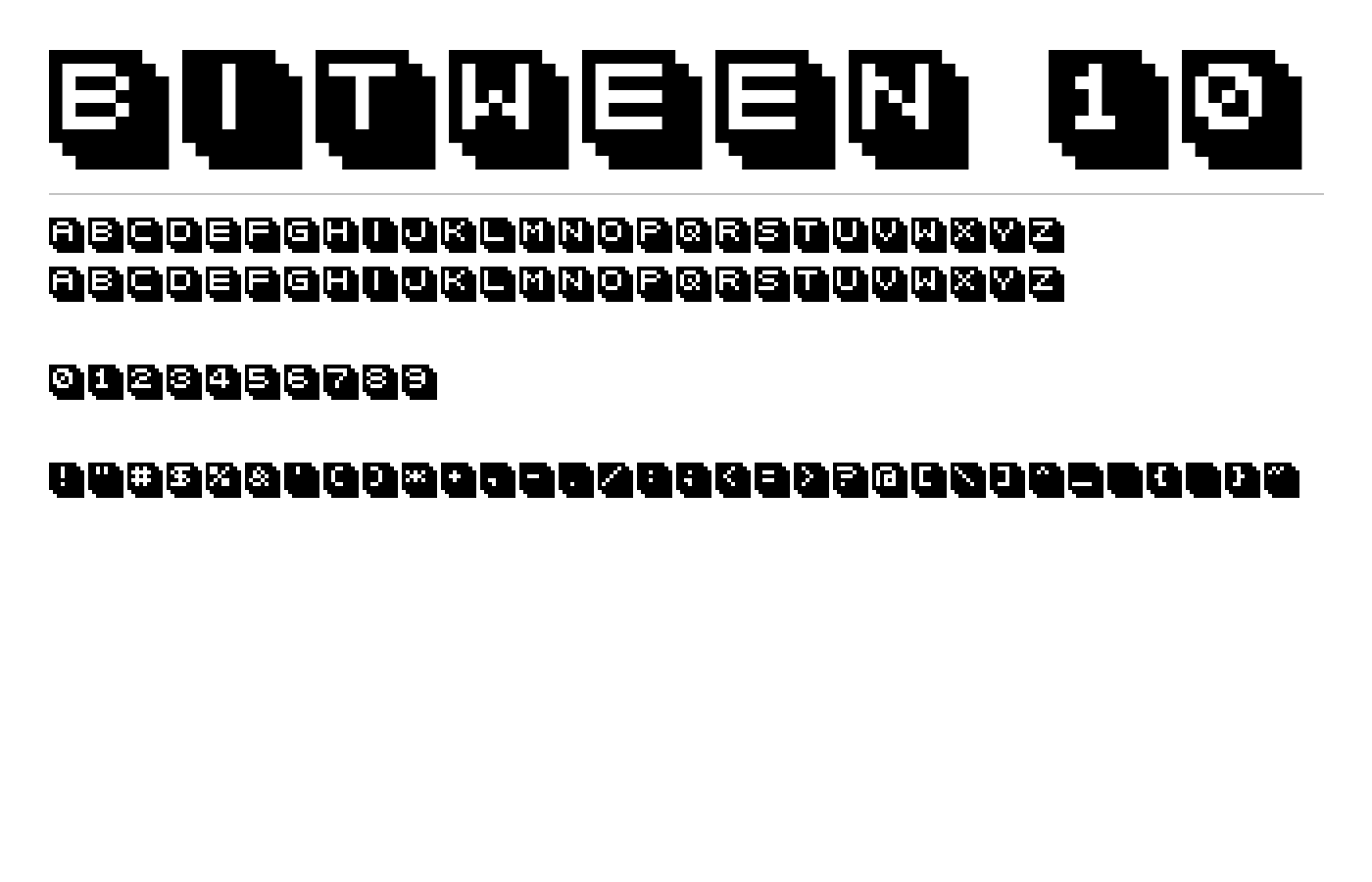
Bitween 10 is a bold, pixel-style sans serif font characterized by its blocky, geometric shapes that evoke a retro digital or arcade aesthetic. Its consistent weight, high contrast in form due to the pixelation, and capital-only letterforms make it perfect for tech-themed designs, video game graphics, and branding that calls for a nostalgic, playful vibe. This font works best in headlines, logos, and posters where its distinctive pixelated look can stand out and capture attention.
bitween 10 Font